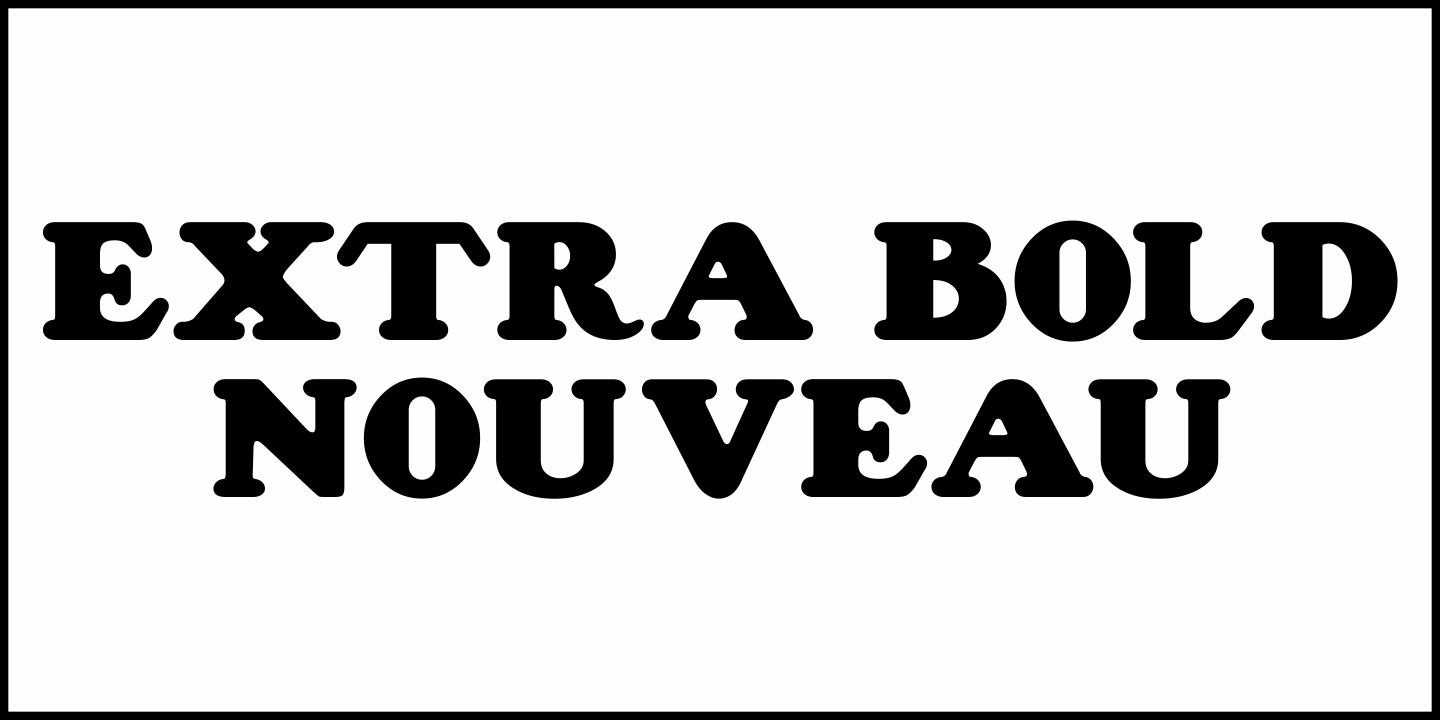
Extra Bold Nouveau
In the 1924 book "Alphabets & Letters" by Harry W. Jacobs (for Milton Bradley), you will find a big, friendly, extra bold typeface with rounded serifs that's reminiscent of Cooper Black, yet has its own distinct style.
This design has been recreated digitally as Extra Bold Nouveau JNL, and is available in both regular and oblique versions.
Extra Bold Nouveau JNL Regular by Jeff Levine Fonts